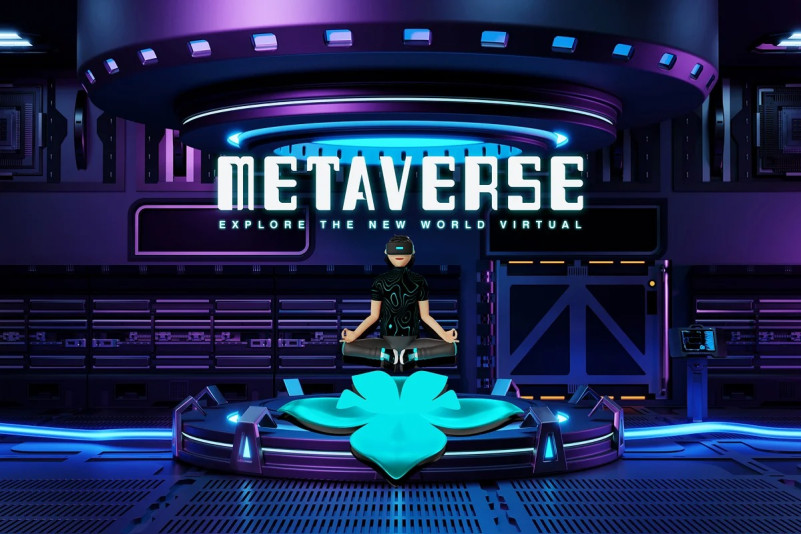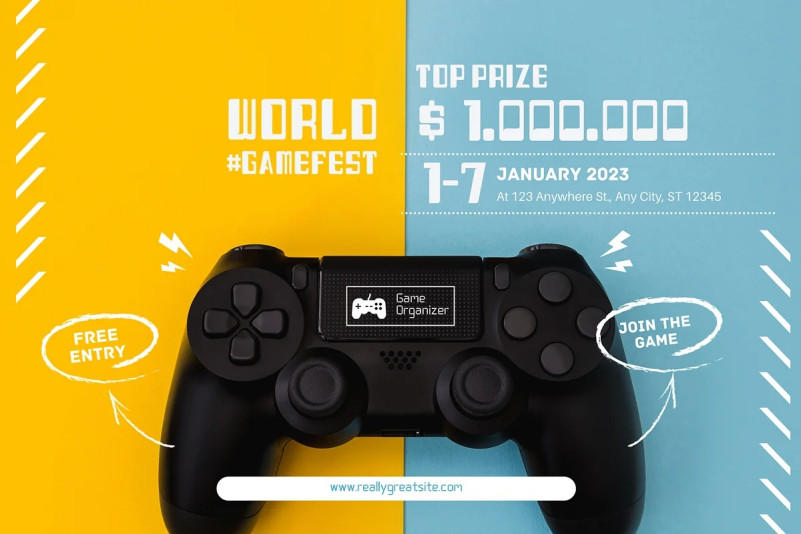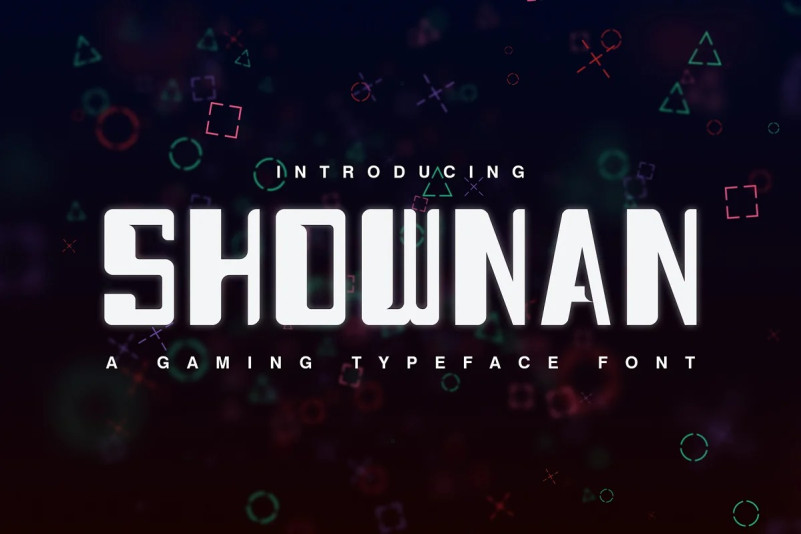
Shownan Font
Shownan Display Font is a font designed for sports and gaming segments such as logo design, ticket design, brochure design, jersey, headline of news, banner, flyer, and others.